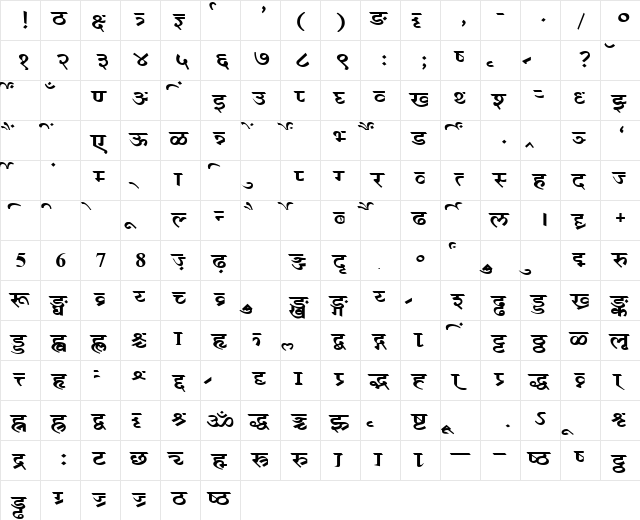
AkrutiDevPriyaExpanded Bold
Design Context for AkrutiDevPriyaExpanded Typeface
AkrutiDevPriyaExpanded takes a measured approach to typography — its balanced proportions and neutral character make it a reliable workhorse for both digital and print work. The heavy weight commands attention and anchors typographic hierarchies.